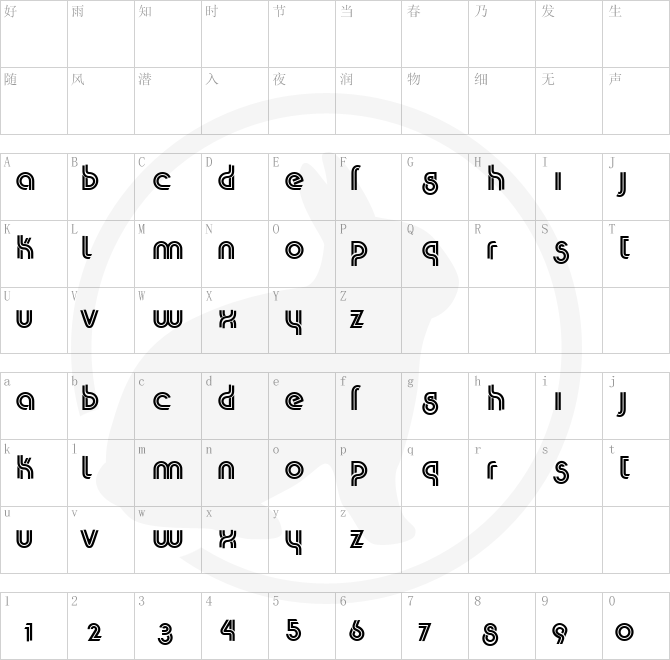
- Font Name:K22 Plural
K22Plural.ttf is a very beautiful artistic font, K22Plural.ttf is widely used in the design and printing of various books and pictures,K22Plural.ttf has a strong visual impact,K22Plural.ttf is a commonly used font in newspapers, magazines and books, and is used in posters, e-commerce Poster design, store design, logo design, font design and other fields.K22Plural.